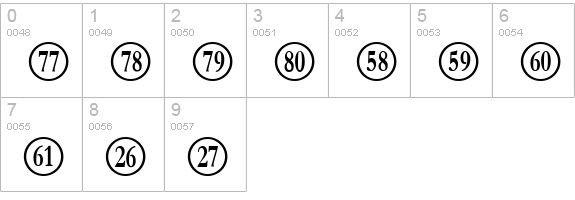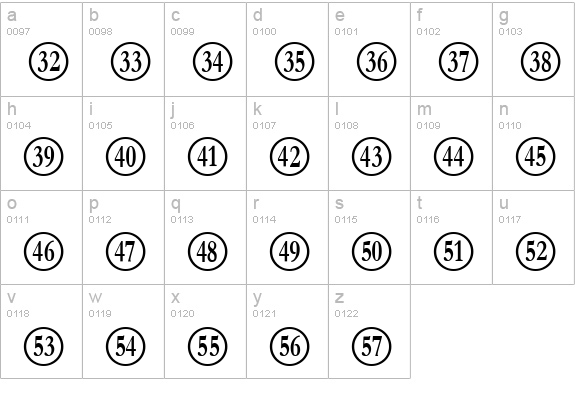
Numberpile Reversed Font Details
Numberpile Reversed font is a unique and playful typeface that will add a fun and modern touch to your designs. With its quirky reversed style, this font is sure to catch the eye and make a statement. Whether you're working on a poster, logo, or social media graphic, Numberpile Reversed font will bring a fresh and exciting look to your project. The best part is that Numberpile Reversed font is completely free to download at FontsMarket.com. So go ahead and get your hands on this creative and versatile font to enhance your designs and make them stand out!